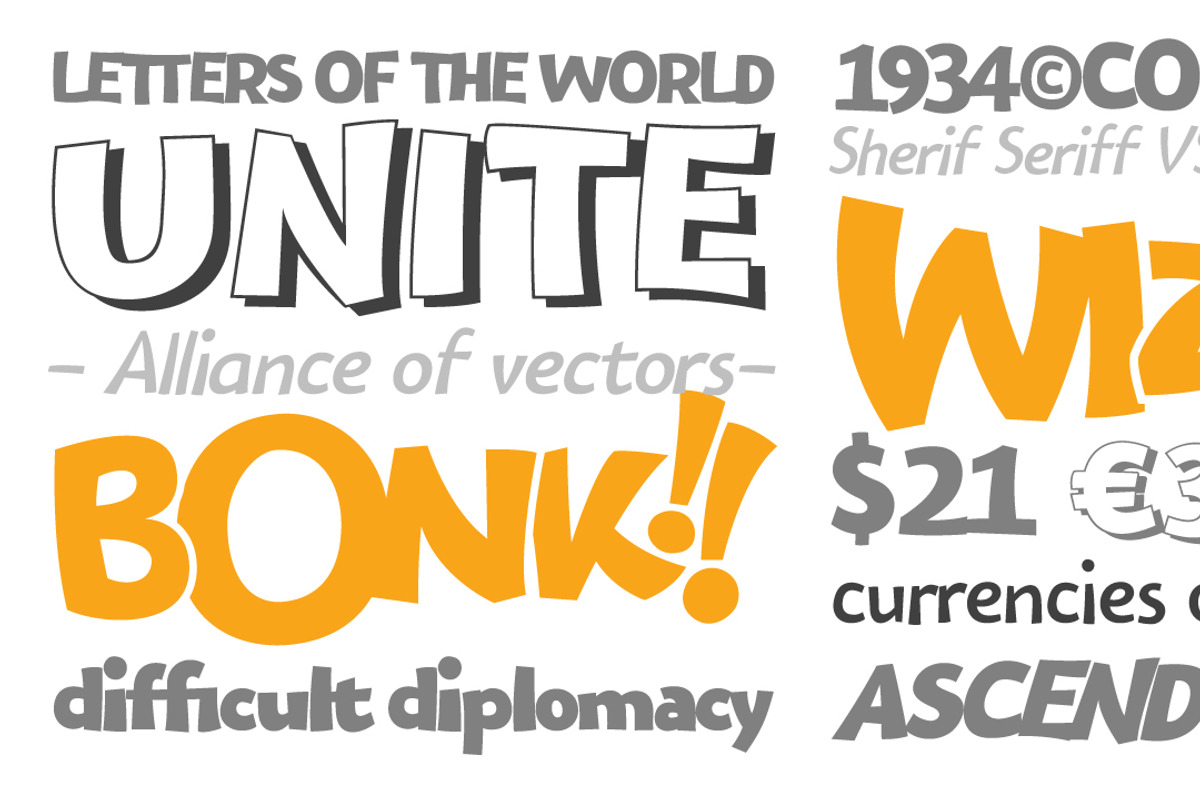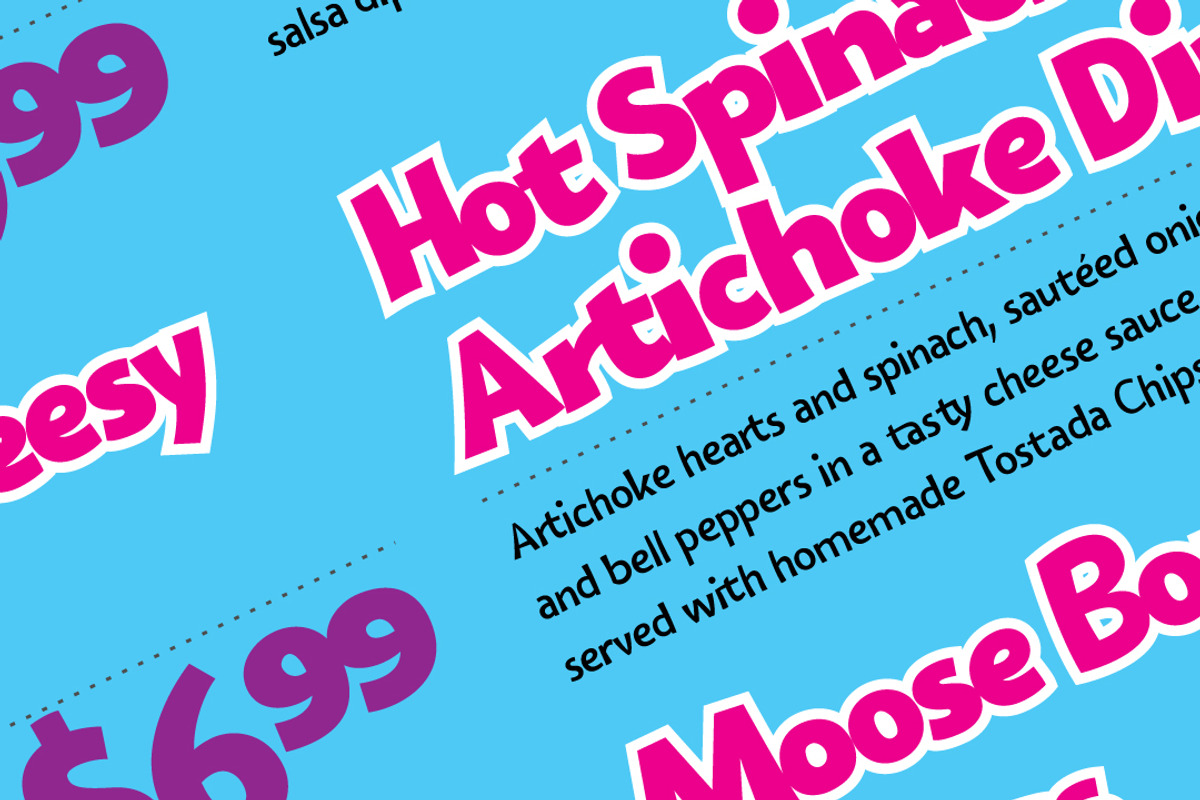
Bangbang
Bangbang is the most ridiculously serious comic font! Despite it's fun and laid back appearance, this typeface family is packed with language support & Opentype features, giving your fun designs a very serious tone!
Weights included: Regular, Regular Italic, Bold, Bold Italic, Outline, Outline Italic
Opentype features: Ligatures, Discretionary Ligatures, Swash, Alternate, Titling, Scientific numerals, Fractions,
Language Support: ISO 1, ISO 2, ISO 3, ISO 4, ISO 5